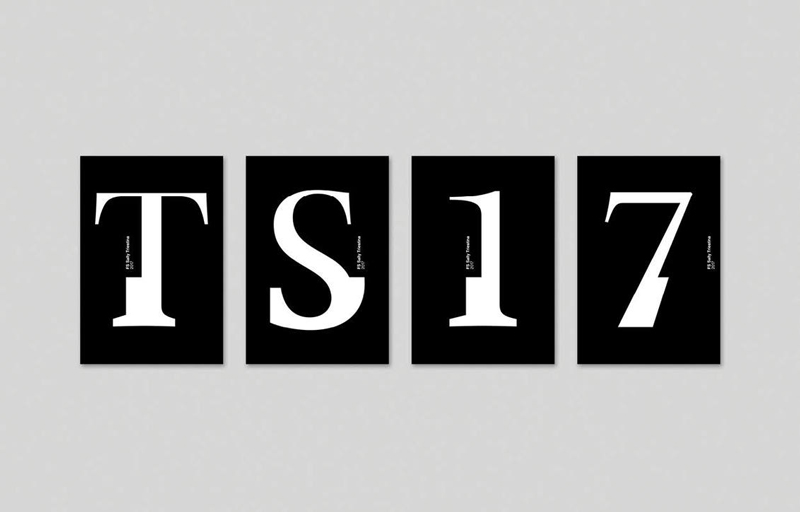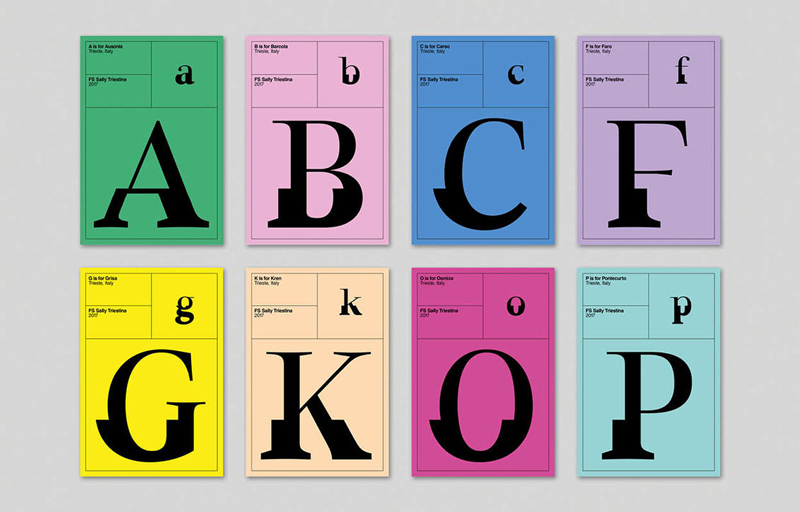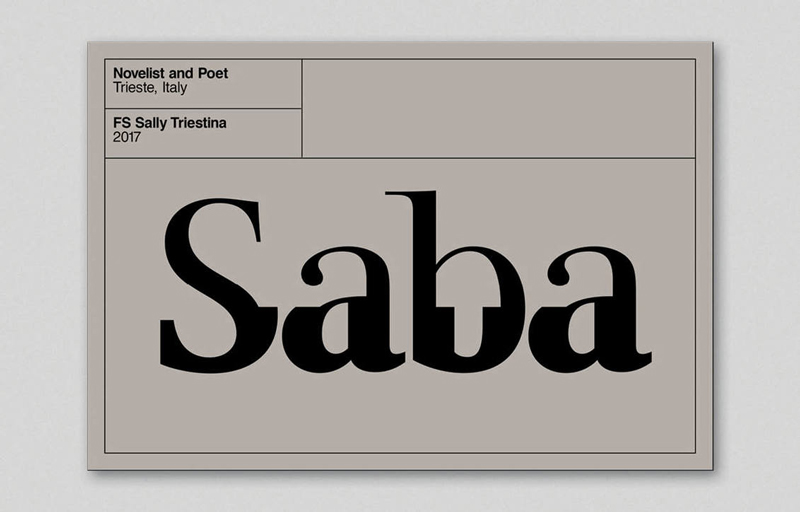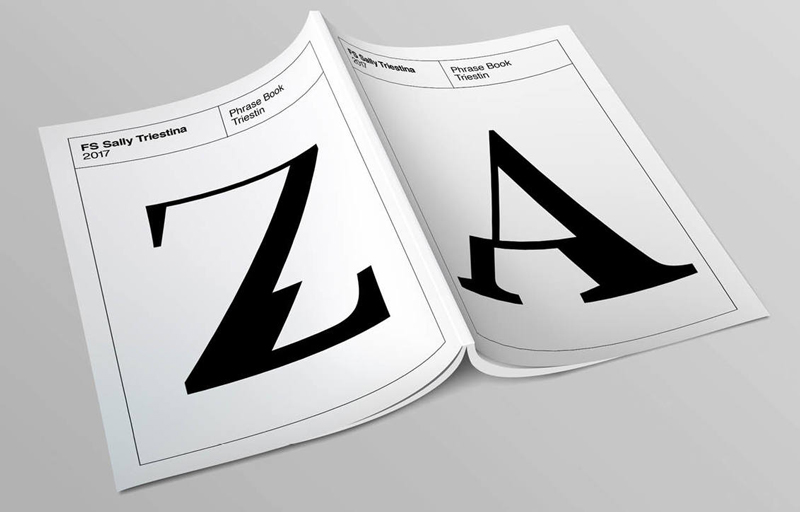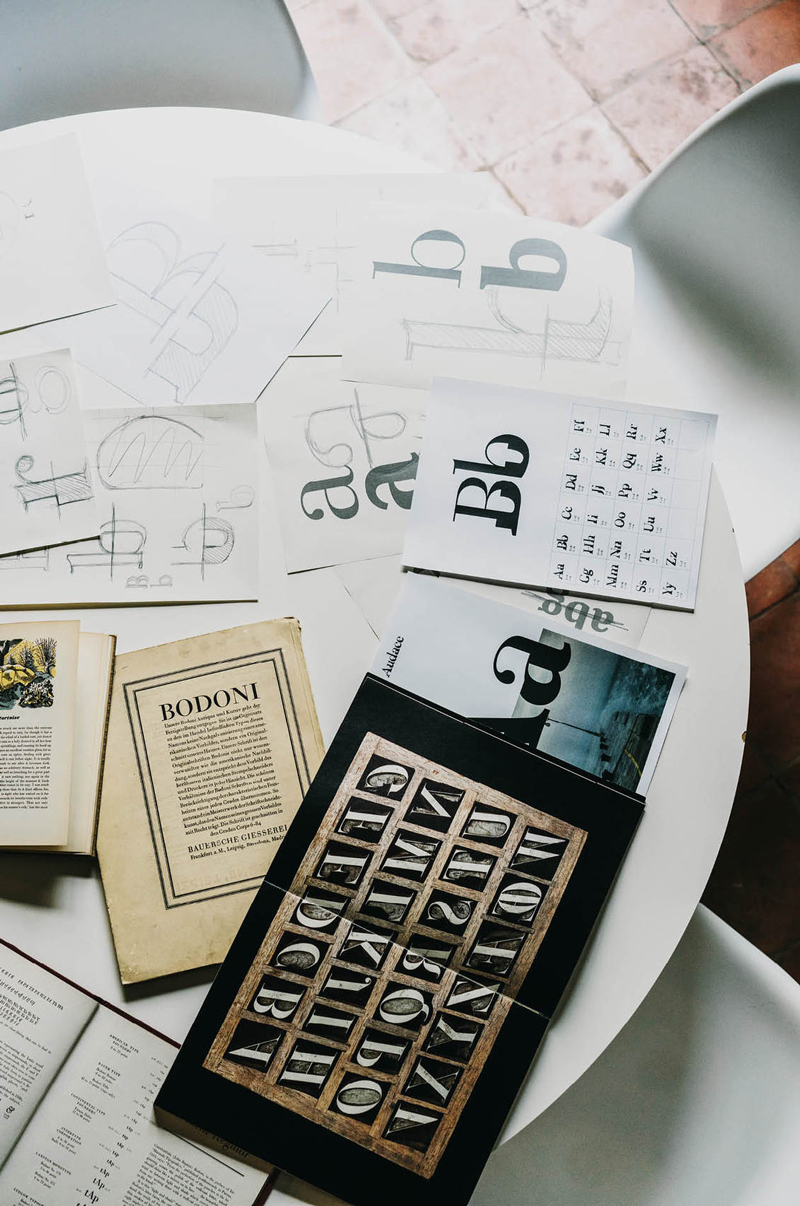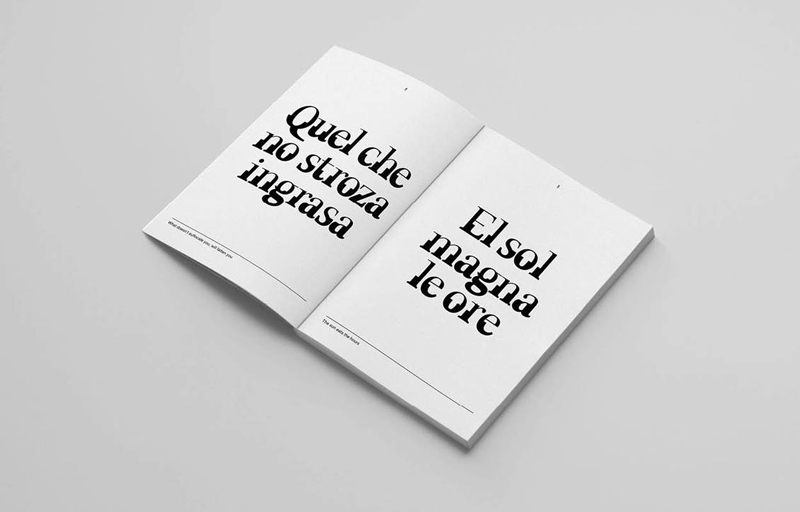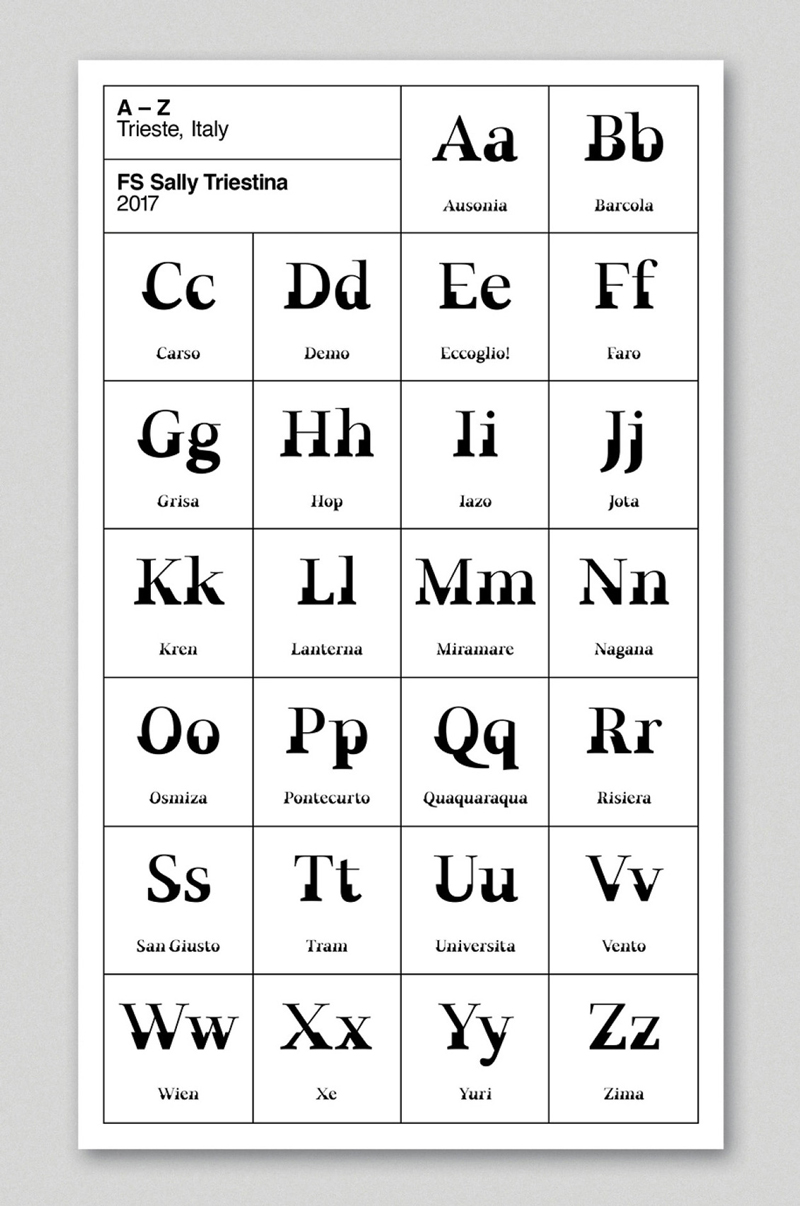
Astrid Stavro, the artistic director of Atlas Design, worked on a typeface about the city where she lives and works: Trieste. The Italian city has a dual personality, with architecture inspired by Austria (the closest neighbor) and a very Italian lifestyle.
The designer worked on a typeface that reflects this and uses type features to reflect this dual personality. The work was commissionned by It’s Nice That in partnership with Fontsmith, you can read more about it in this blog post.